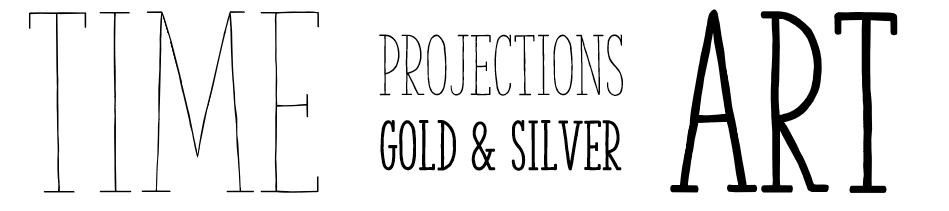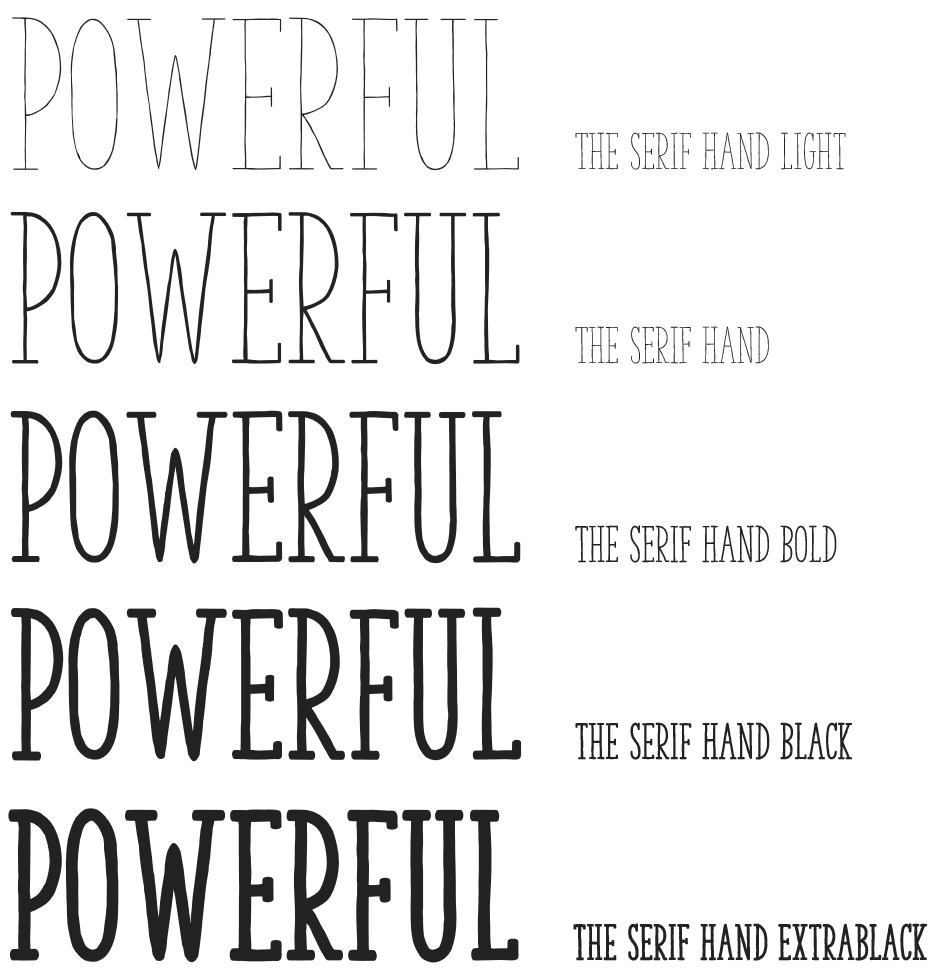
Some typefaces are mysterious, like this one—its origins are an enigma wrapped within a riddle, indeed. While its letterforms may be shrouded in secrecy, this design is sure to make a fine addition to your typographic arsenal, so we recommend you go try it out. – fonts.com
In 2019 we reviewed the set of fonts provided with Office identifying stylistic gaps. The result of that effort was the addition of over a hundred new fonts, including classics like Avenir Next LT Pro and Walbaum along with contemporary designs like The Hand, Sagona and Modern Love. These new fonts are available in most Office applications and have been used in a range of new templates.
Designers | Julien Saurin Fanny Coulez |
Font vendor | S&C Type |